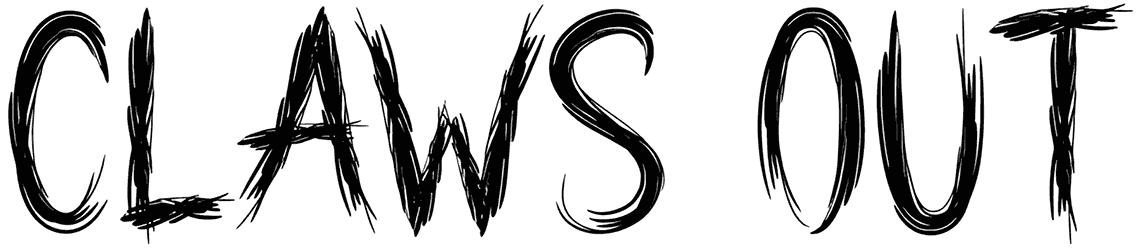
Claws Out Font
Claws Out font doesn’t walk into a layout quietly; it scratches its way in and leaves marks. Its sharp horror style gives every word a dangerous, feral edge, perfect for titles that need tension before the audience even knows what the story is. You get that wild slash-like energy without needing to cover the design in fake blood or monster graphics.
Horror posters, Halloween flyers, thriller book covers, metal album art, gaming titles, haunted house branding, and dark YouTube thumbnails can all make this horror font work hard. Try it with black backgrounds, red accents, smoky textures, or torn edges for a properly vicious finish.